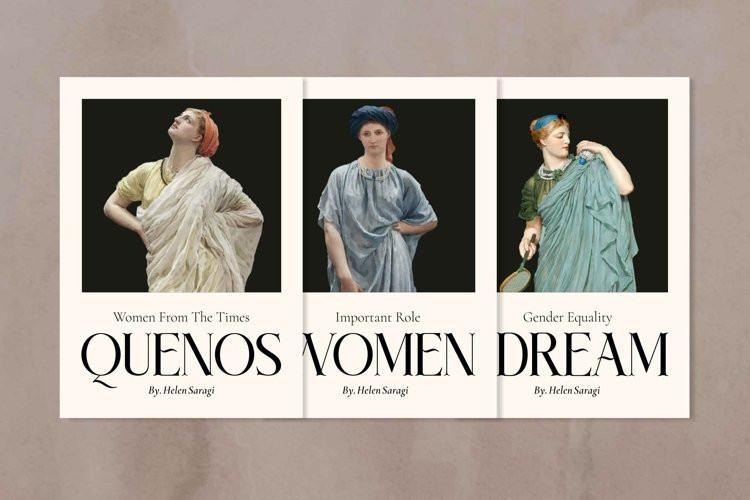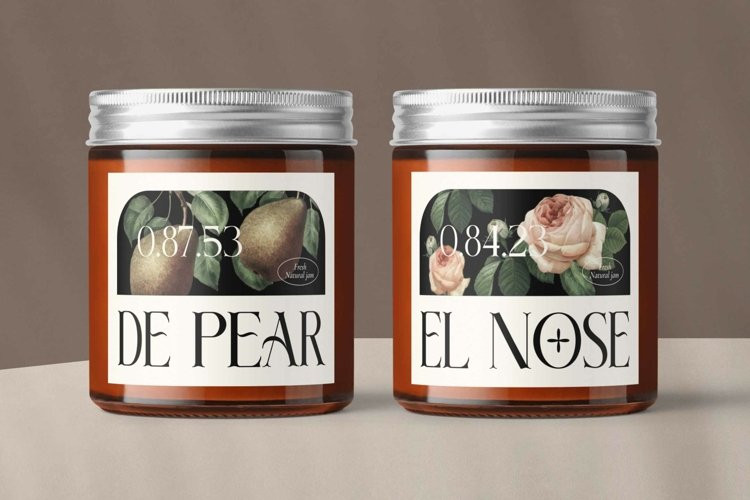
The Avonse Font
The Avonse FontThe Avonse is a classic sharp serif display font that has been modernized . Complemented by some of the same alternatives made with love. The Avonse which can be used for any design project like create stunning logos, quotes, header, blog posts, branding projects, magazine imagery, packaging, and much more.